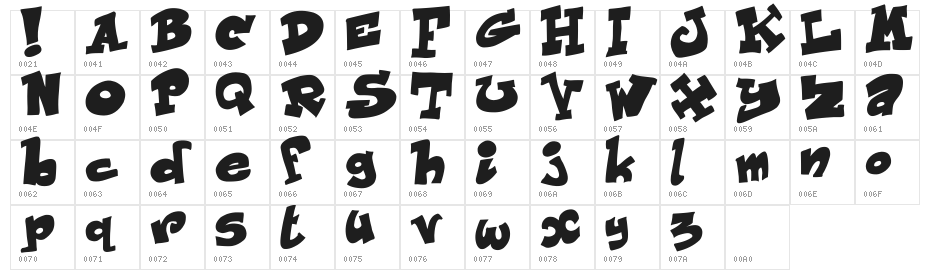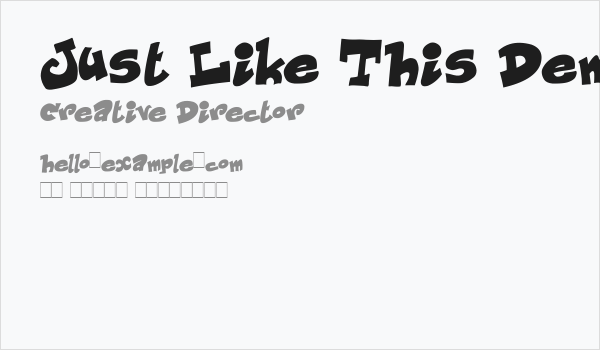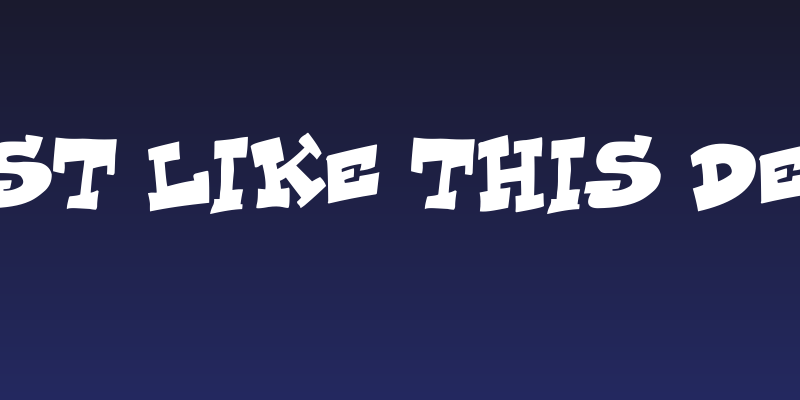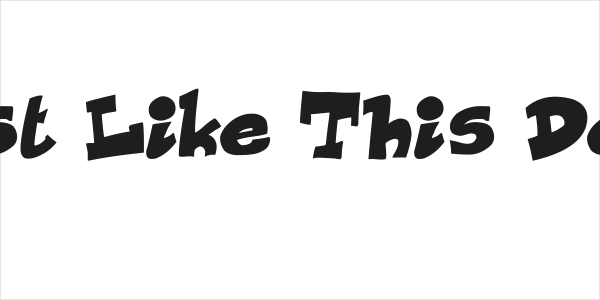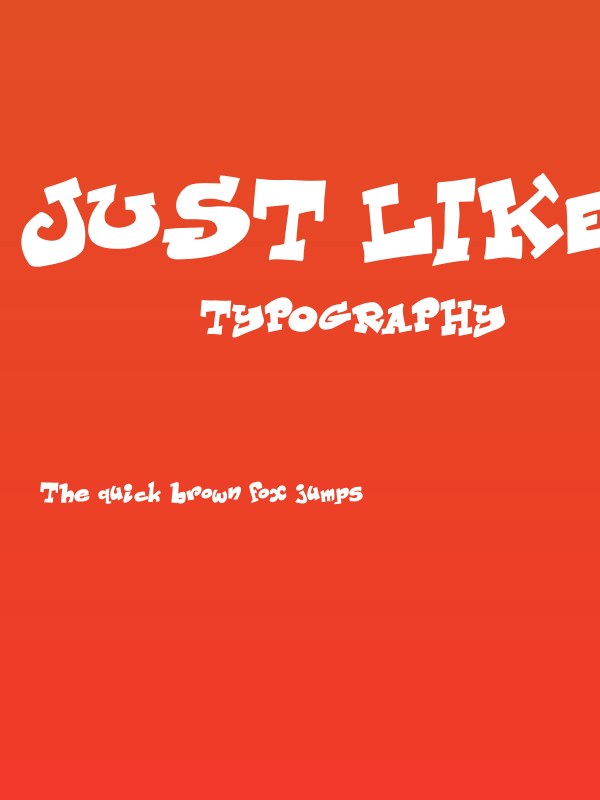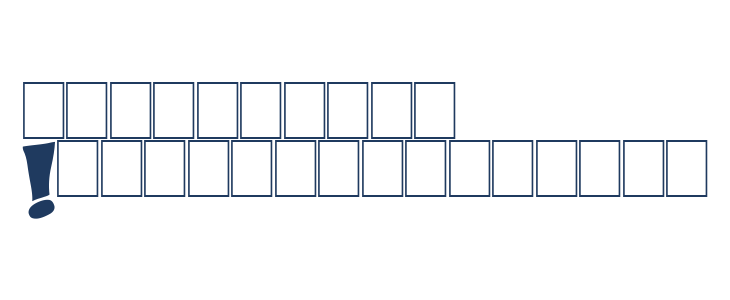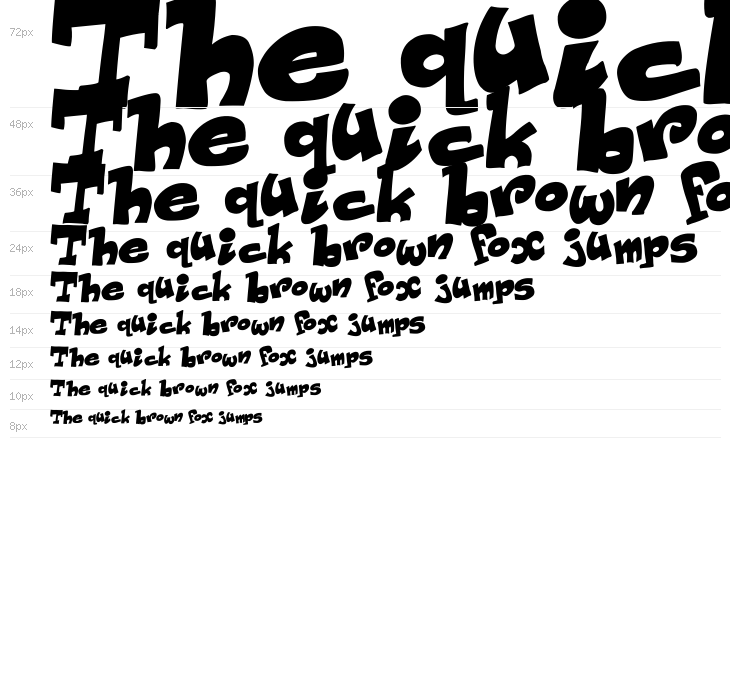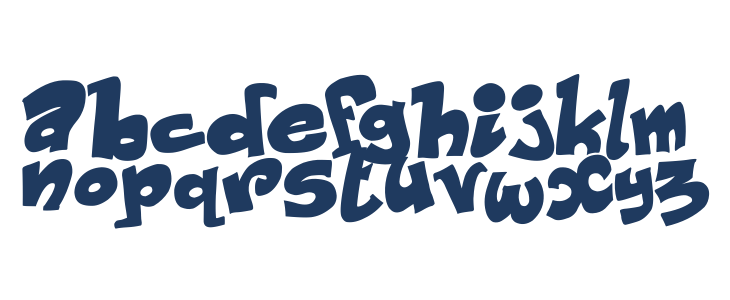
Just Like This Demo Font
Just Like This Demo Description
This font features a playful and whimsical design, characterized by its bold and exaggerated letterforms. Each character has a unique, hand-drawn appearance with irregular shapes and varying stroke widths, giving it a dynamic and energetic feel. The font's quirky style is accentuated by its uneven baseline and varying character heights, creating a sense of movement and spontaneity. The overall look is reminiscent of graffiti or comic book lettering, making it ideal for projects that require a fun and informal touch.
| Proposed Projects | Ideal for children's books, comic strips, playful branding, and event posters. |